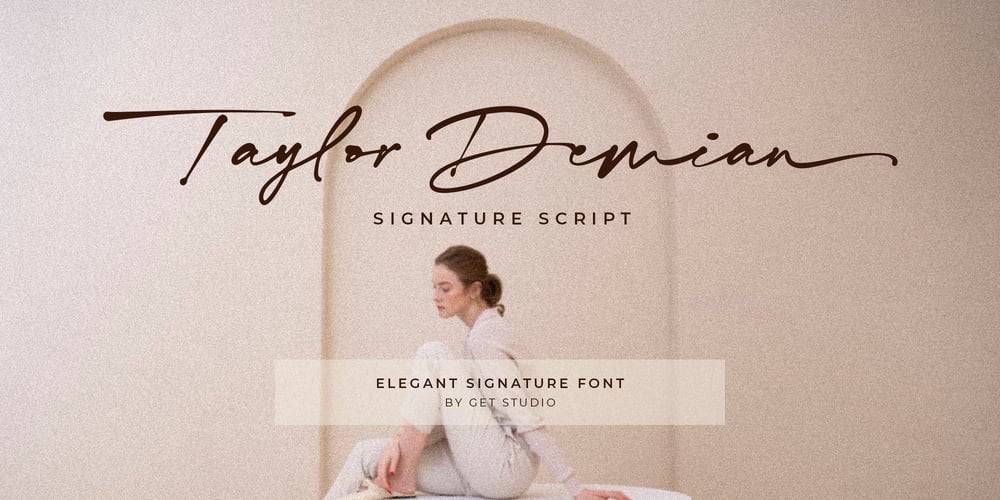
Taylor Demian Script Font Family was designed by Hermansyah and published by Get Studio. Taylor Demian Script contains 1 styles and family package options. Introducing Taylor Demian Signature FontThis new script font embodies the essence of a natural signature style. Designed to convey elegance and organic handwriting, it effortlessly exudes a sense of graceful flow. Meticulously crafted, this font can be seamlessly incorporated into various contexts.With its elegant signature style, natural impression, and clever ligature usage, this script font closely resembles authentic handwriting. It brings a personalized and aesthetically pleasing quality to your design projects.